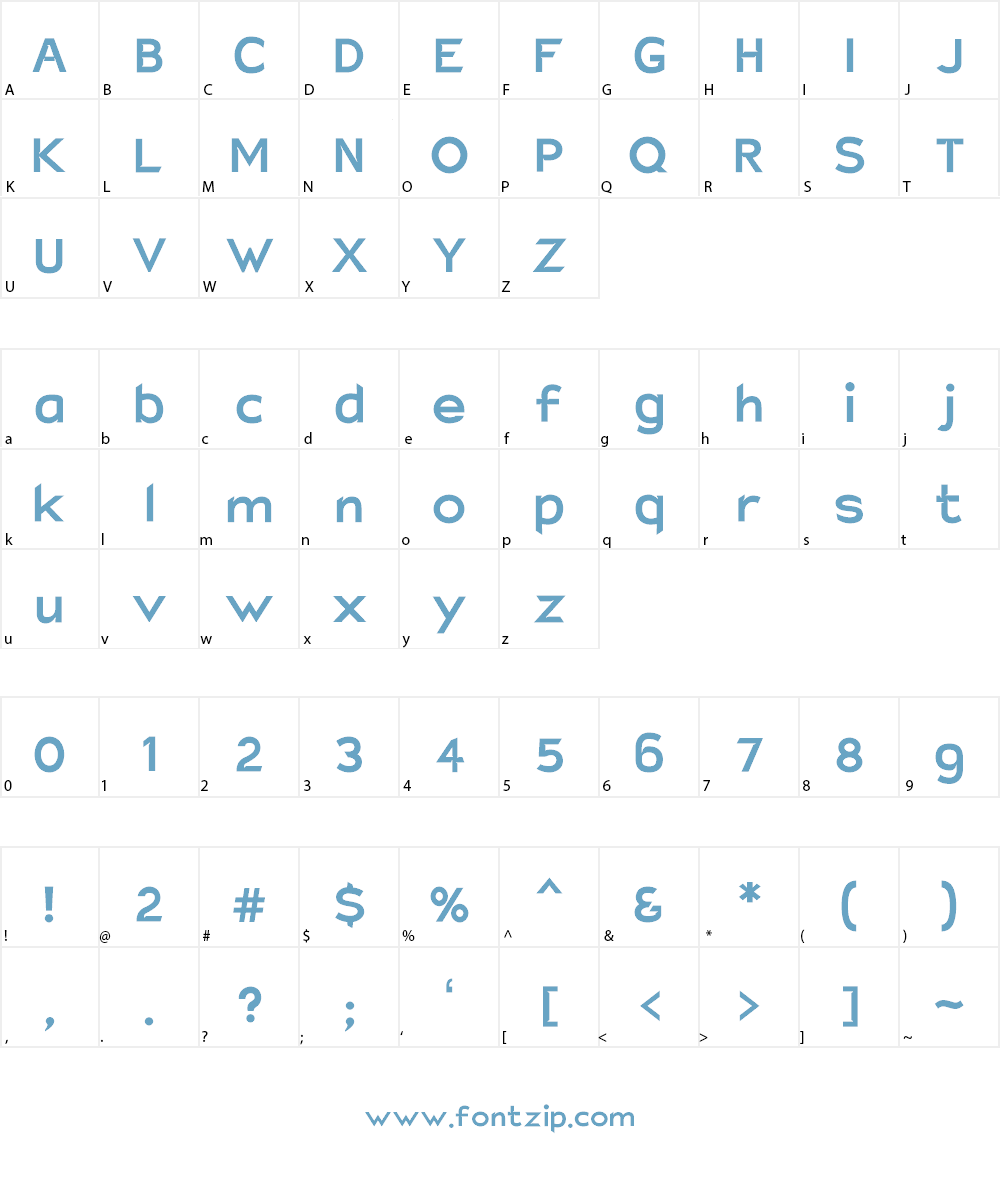
Charger Eco is a new Charger variant, it has ink traps added and other design modifications to save ink when printed compared to the heavier weights of other Charger variants, including Charger Pro and Charger Sport, and to have a unique look.